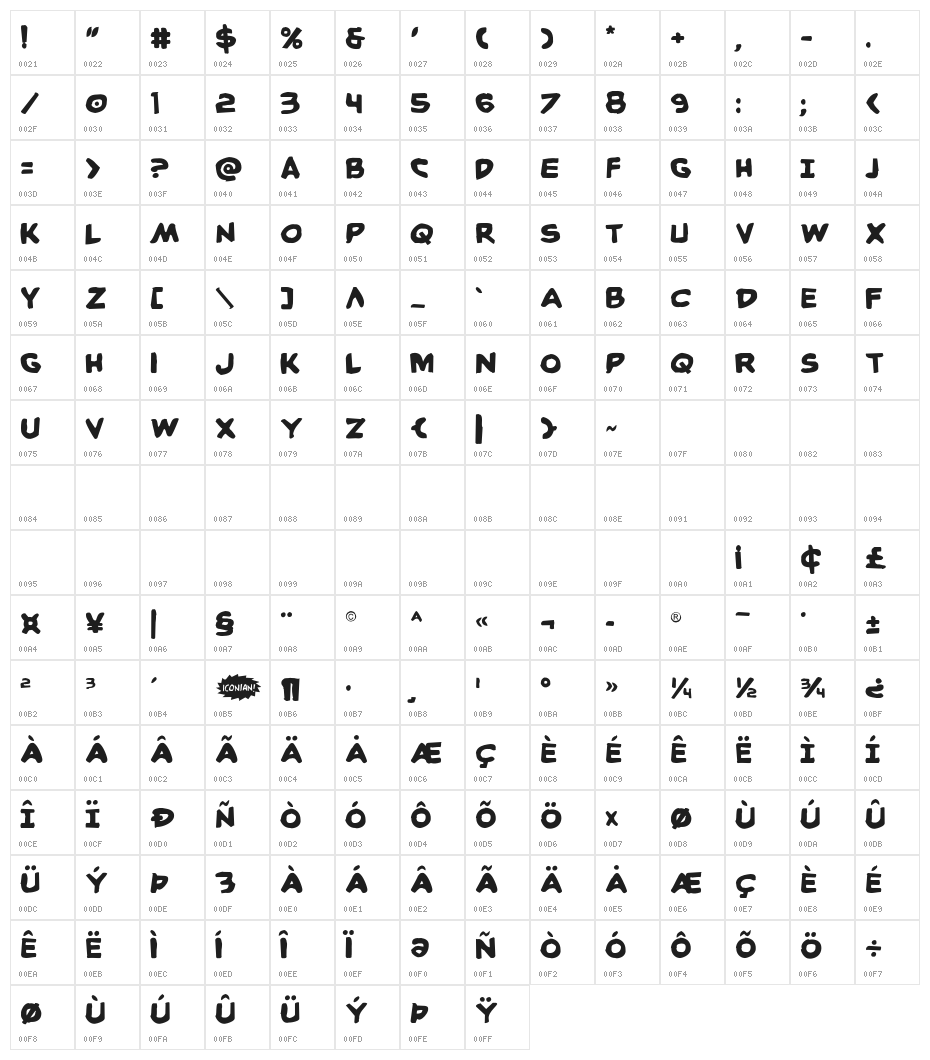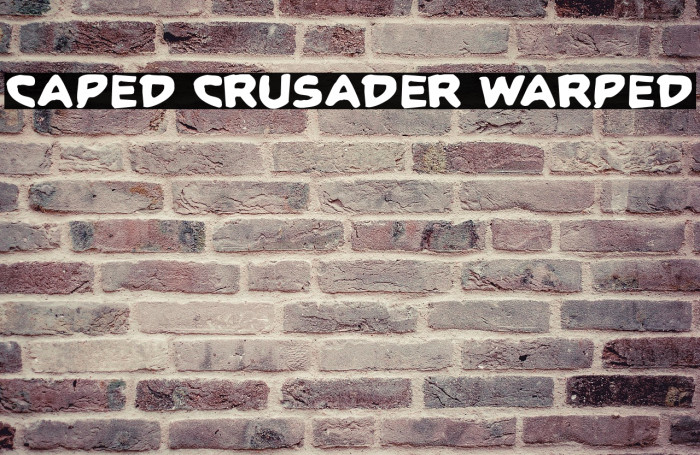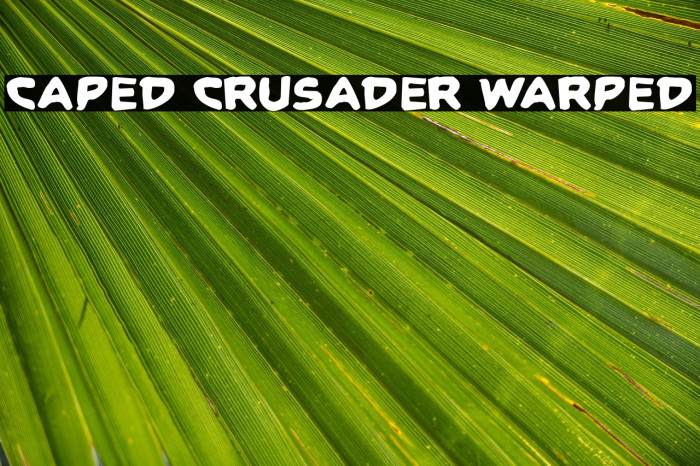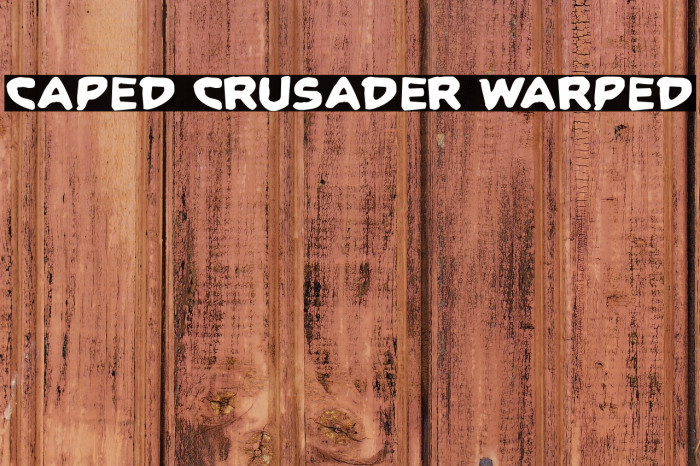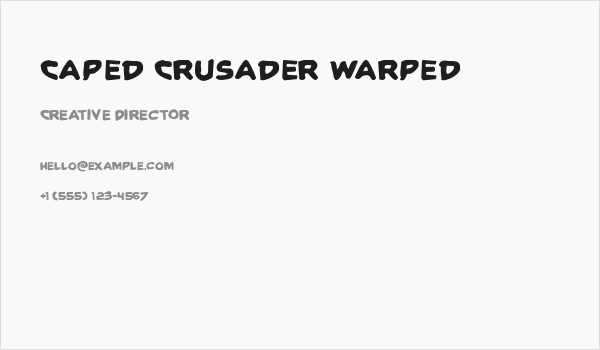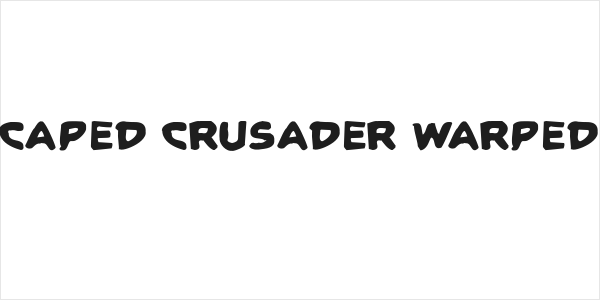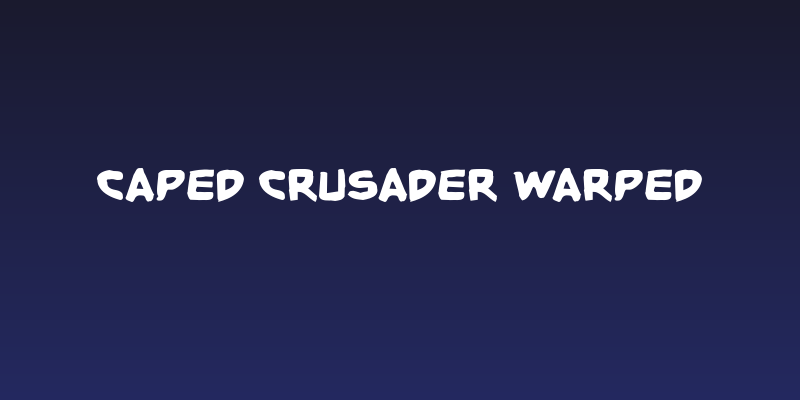
Caped Crusader Warped Font
Caped Crusader Warped Description
This font features a bold and playful design with a hand-drawn aesthetic. The characters are thick and slightly irregular, giving them a whimsical and dynamic appearance. The strokes are uneven, contributing to a sense of movement and energy. The font maintains a consistent weight throughout, with rounded edges that soften its overall look. The spacing between characters is relatively tight, enhancing its compact and cohesive feel. This style is particularly suited for projects that require a fun and engaging visual impact.
| Proposed Projects | Ideal for comic books, children's books, playful branding, and creative posters. |